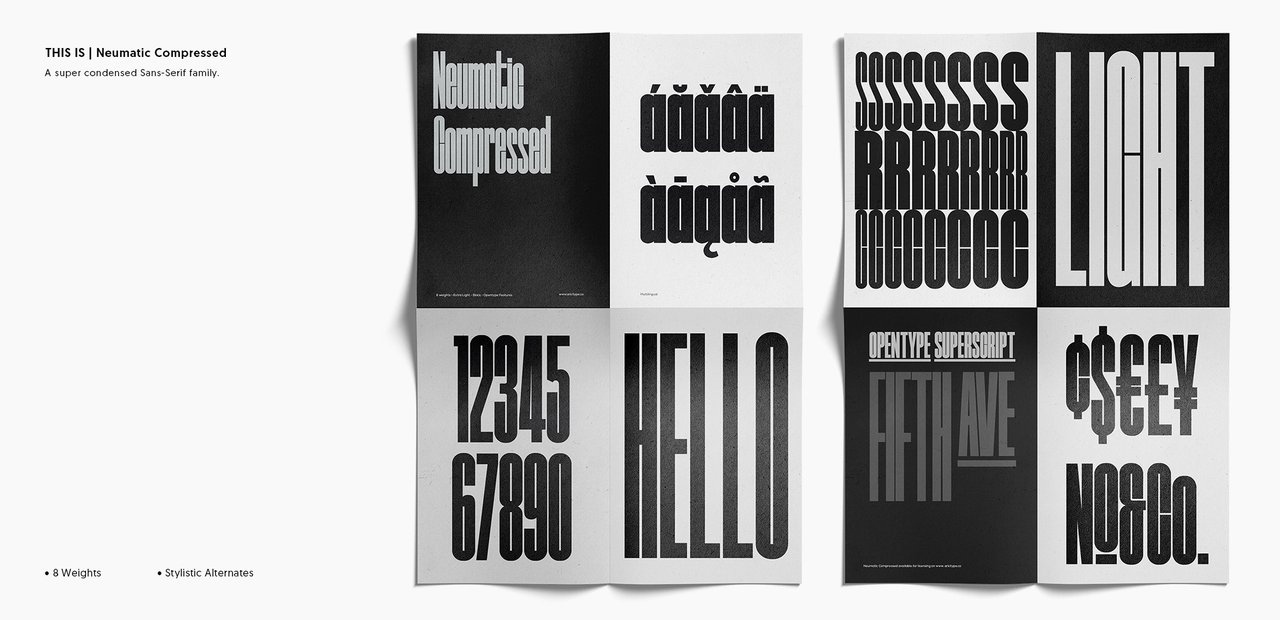
Neumatic Compressed Font
Neumatic Compressed Font is perfect for modern branding projects, website headers, logo designs, poster artwork, magazine layouts, social media graphics, advertising campaigns, and contemporary digital interfaces.
This exciting Neumatic Compressed Font brings a fresh, dynamic energy to any design project with its sleek compressed letterforms and contemporary aesthetic that captures attention instantly. The font's innovative design philosophy combines functionality with visual impact, making it an ideal choice for designers who want to create memorable and professional-looking content that stands out from the competition.
The Neumatic Compressed Font family includes multiple weights and styles: Regular, Bold, Light, Medium, Black, and Italic variations, providing designers with comprehensive typographic flexibility for various design applications and hierarchical text arrangements.
The geometric precision of Neumatic Compressed Font makes it particularly effective for technology companies, startups, fashion brands, and creative agencies seeking a modern, professional appearance. Its condensed character width allows for efficient use of horizontal space while maintaining excellent character recognition at various sizes.
Digital designers appreciate how Neumatic Compressed Font performs across different screen resolutions and devices, ensuring consistent visual quality from desktop monitors to mobile screens. The font's carefully crafted letter spacing and proportions create harmonious text blocks that enhance user experience and readability.
Professional graphic designers choose Neumatic Compressed Font for its versatility in both display and text applications. The font's clean lines and modern sensibility make it suitable for headlines, subheadings, body text, and navigational elements, providing design consistency across entire brand identities and comprehensive design syste